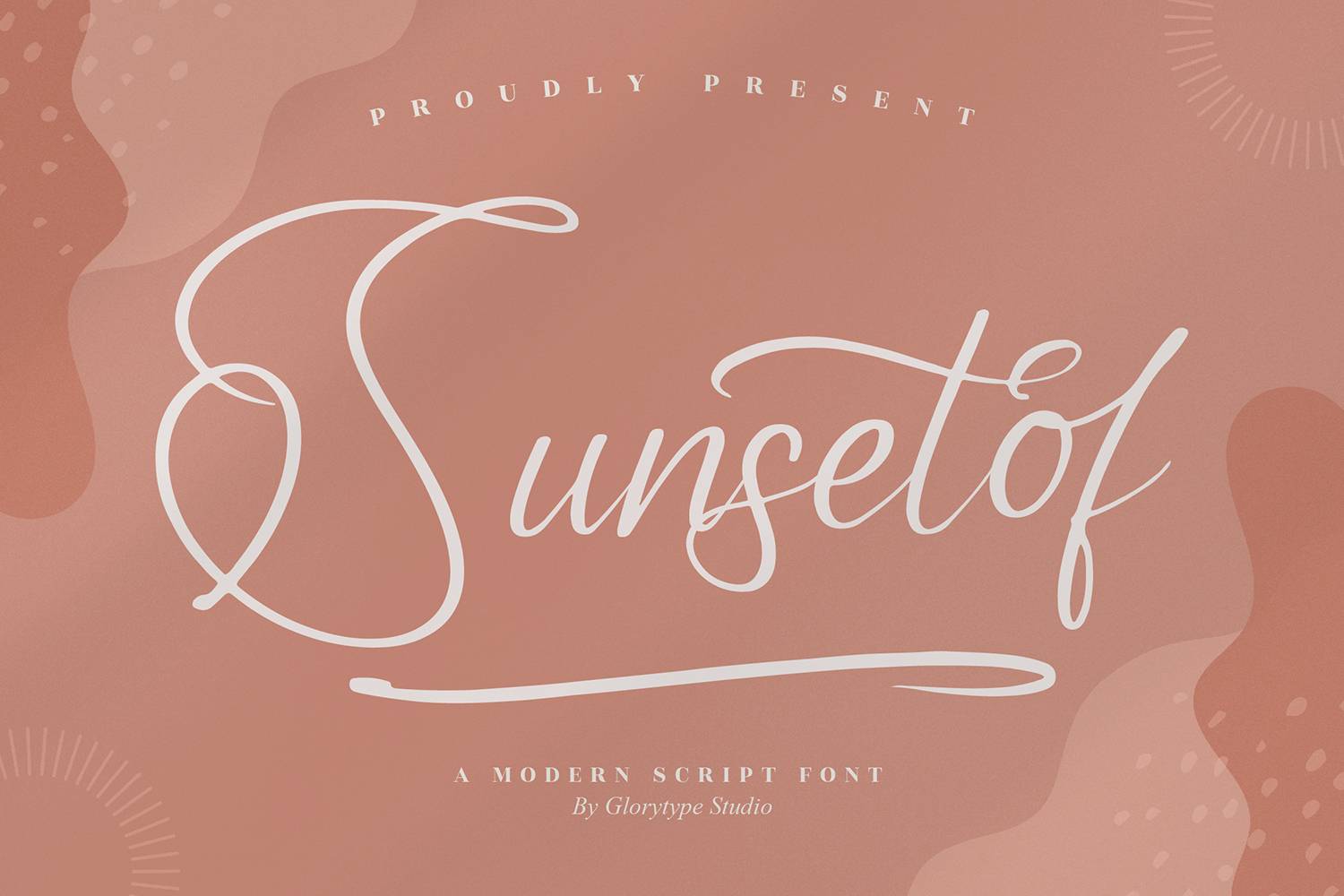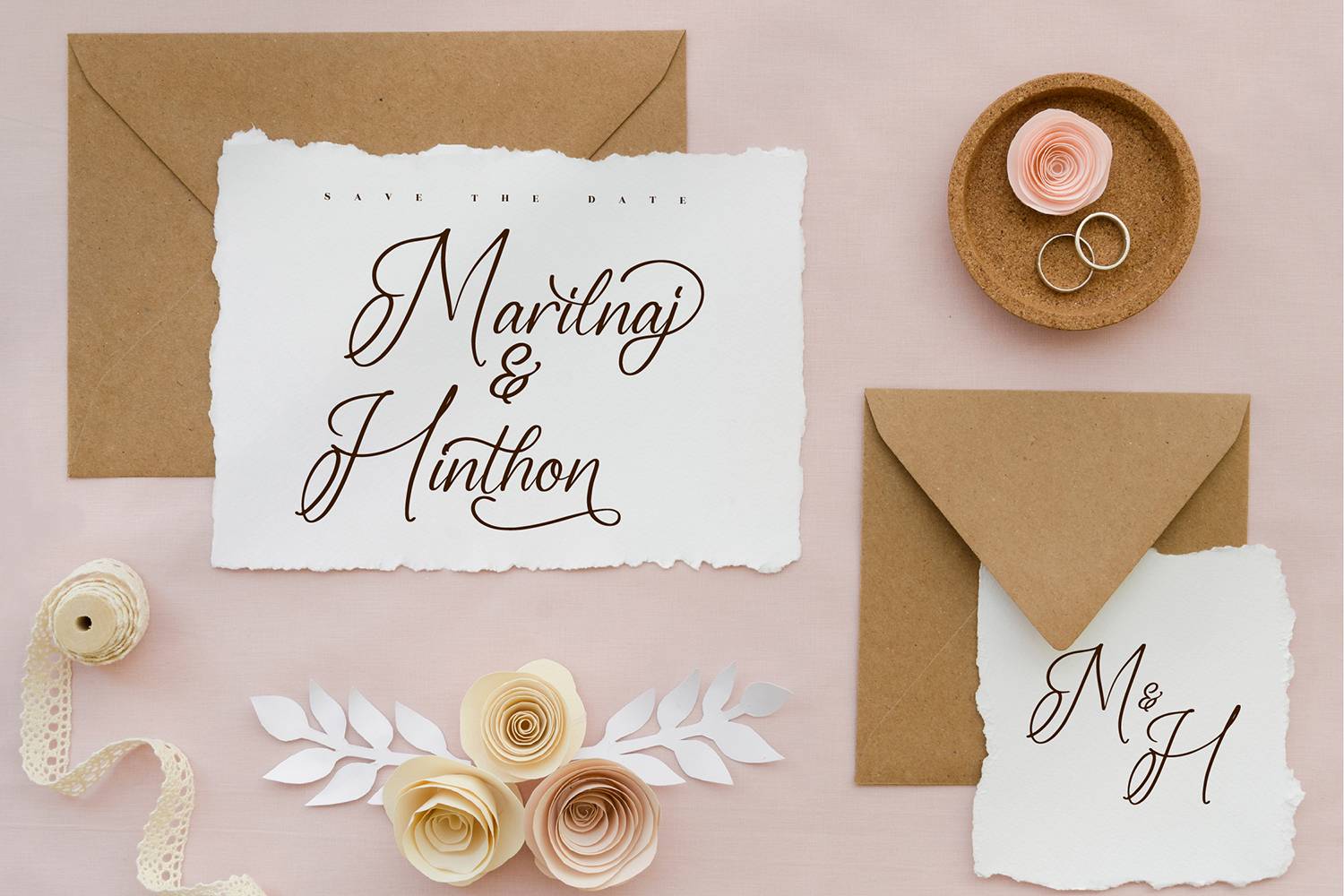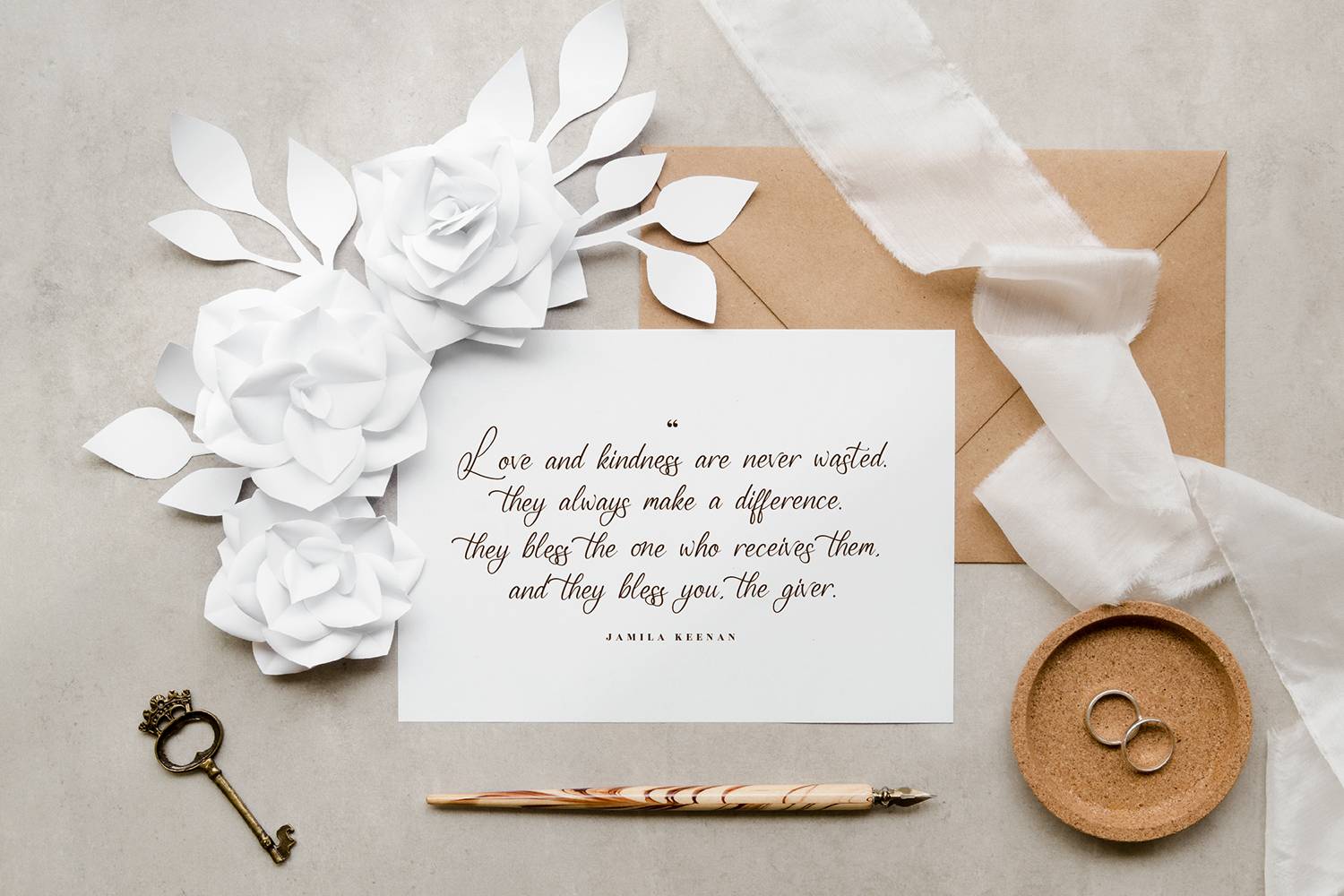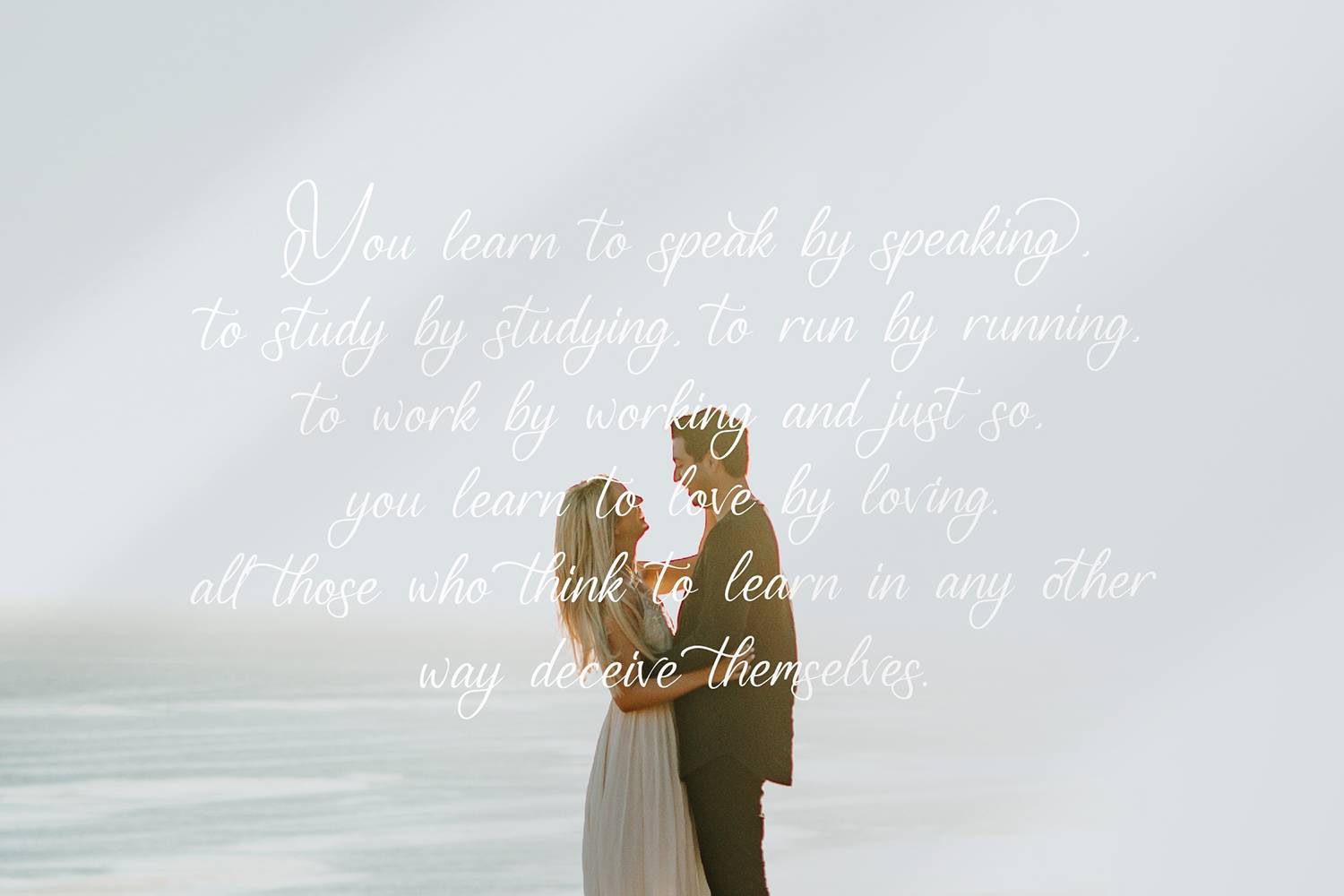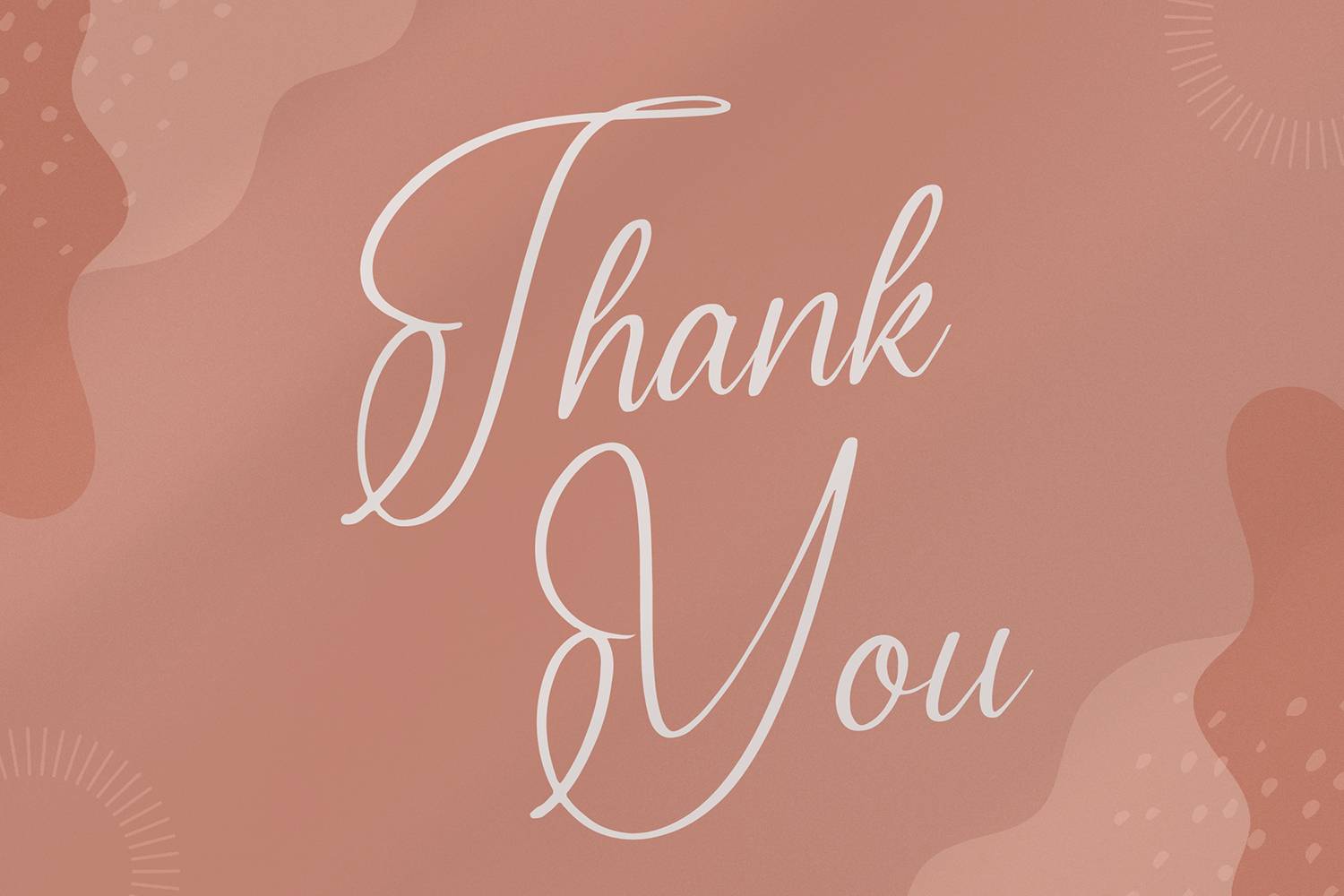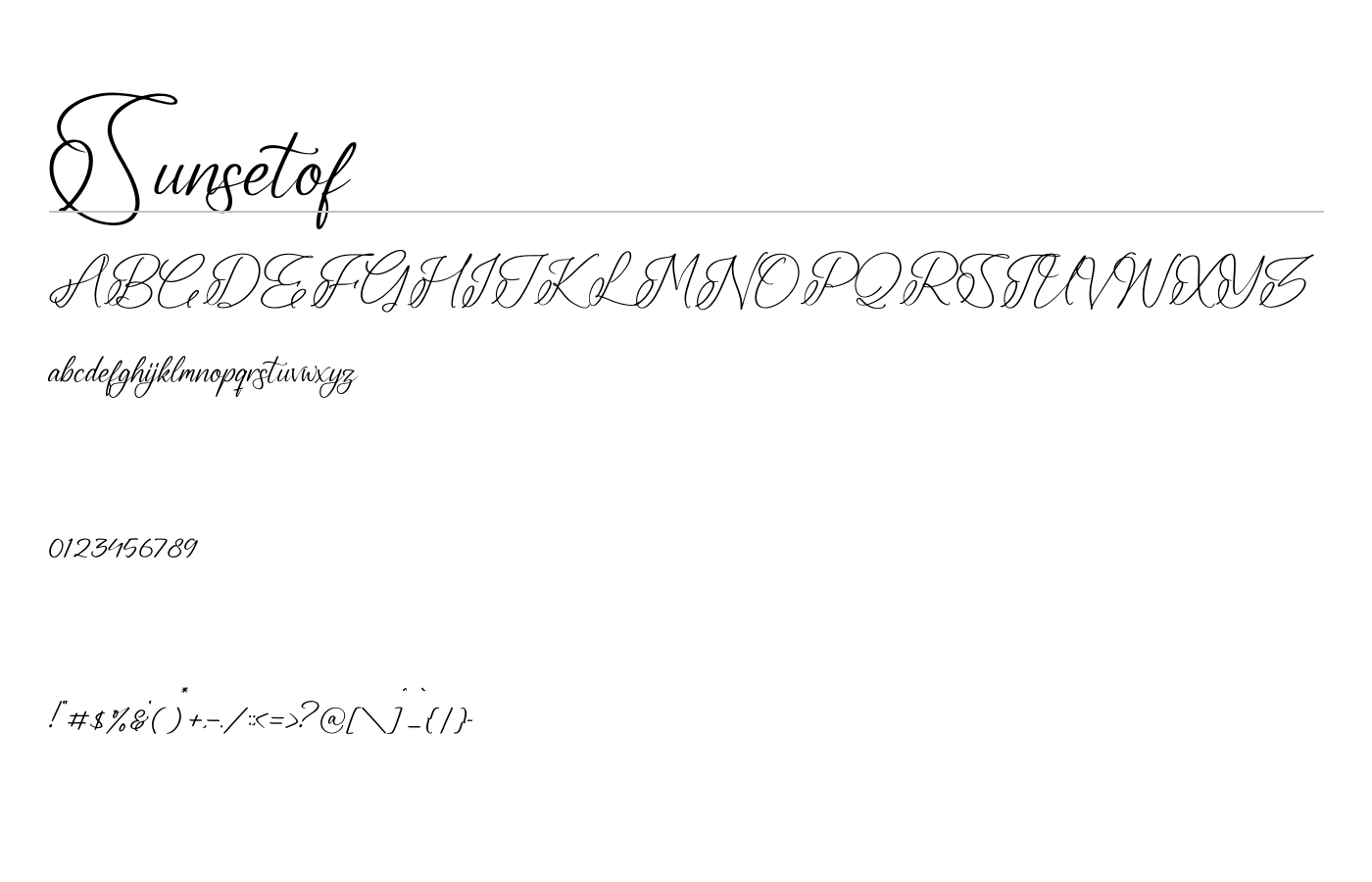
Sunsetof is an elegant script font with delicate, flowing strokes that give it a refined and graceful personality. Its slender, calligraphic letterforms with fine lines and ornate uppercase characters make it ideal for sophisticated branding, wedding invitations, and luxury packaging. This font works best in decorative headlines or logos where a touch of classic, artistic beauty is desired.
Sunsetof Font
About Sunsetof Font